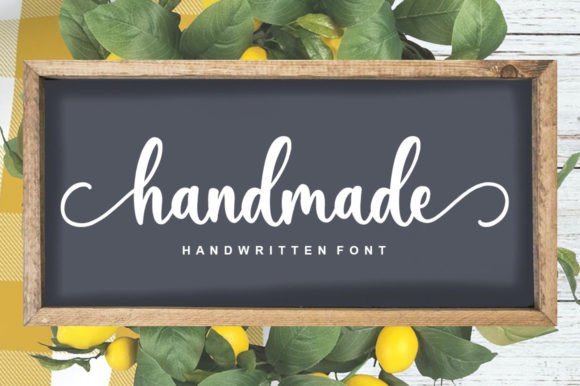
“Handmade” is a romantic and naturally charming handwritten font that effortlessly captures a sense of friendliness and authenticity. With its unique style and graceful letterforms, this font adds a touch of warmth and personalization to any project. Whether you’re designing wedding invitations, creating birthday cards, or crafting beautiful stationery, “Handmade” is the perfect choice to infuse your designs with a heartfelt and genuine feel.
The romantic and delicate nature of “Handmade” makes it an ideal font for wedding-related projects. Its flowing strokes and elegant curves evoke a sense of love and beauty, setting the perfect tone for wedding invitations, save-the-date cards, and wedding stationery. The handwritten look adds an intimate and personal touch, creating a memorable experience for the recipients.
In addition to weddings, “Handmade” can be used for a variety of creative projects. Its charm and authenticity make it well-suited for birthday cards, greeting cards, quotes, and any design that aims to convey a friendly and personal message. The font’s natural and imperfect style adds a sense of handmade craftsmanship, making each piece feel unique and special.
With “Handmade,” you have a font that inspires creativity and evokes a genuine connection. Its romantic and charming appearance adds a touch of elegance to your designs, while the handwritten quality brings a sense of authenticity and warmth. Whether you’re designing for personal or professional purposes, “Handmade” is a versatile and captivating font that will enhance your creative projects.